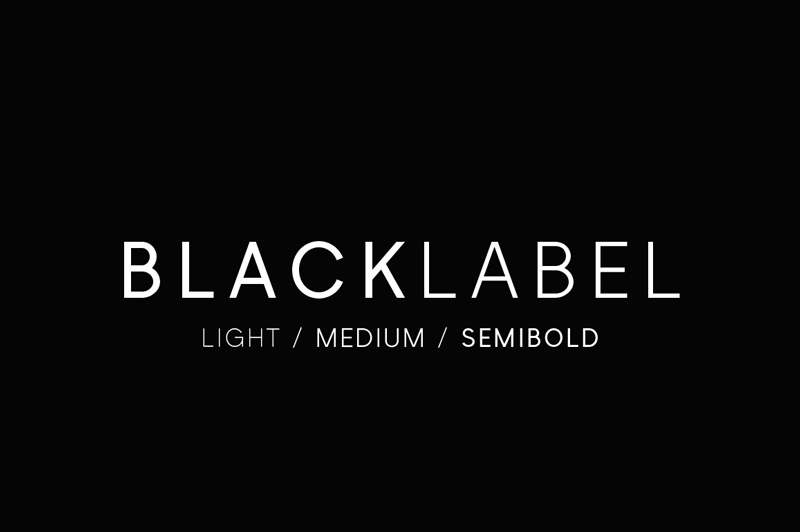
Preview and download Black Label Font. Created by Goicha in Basic Sans serif styles with Donationware license.
This demo font is for PERSONAL USE ONLY! Black Label is a clean Minimal Font that combines simplicity and precision it works well in titles and headlines. ►►► Only the full version includes > Medium and Semibold But any donation is very appreciated. ►►► Paypal account for donation : paypal.me/goicha Link to purchase the full version and commercial license: http://goicha.org/downloads/goichas-font-bundle/ Thank You |